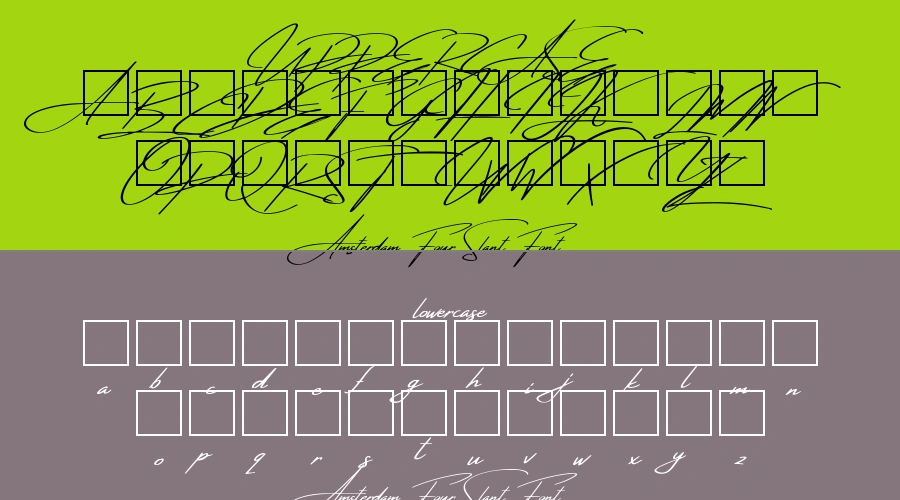
About Amsterdam Four Slant Font
Amsterdam Four Slant Font embodies typographic excellence through its masterful combination of contextual swashes and enduring style. Created for logo design, this typeface delivers exceptional authenticity and cultural authenticity across all applications. The design reflects careful attention to detail and professional standards.
Advanced capabilities include distinctive perfect spacing and versatile case-sensitive forms, giving designers creative control. When used in literary pages, Amsterdam Four Slant Font exhibits remarkable archive stability. The harmonious balance between stem weight and modern touches sets this typeface apart.